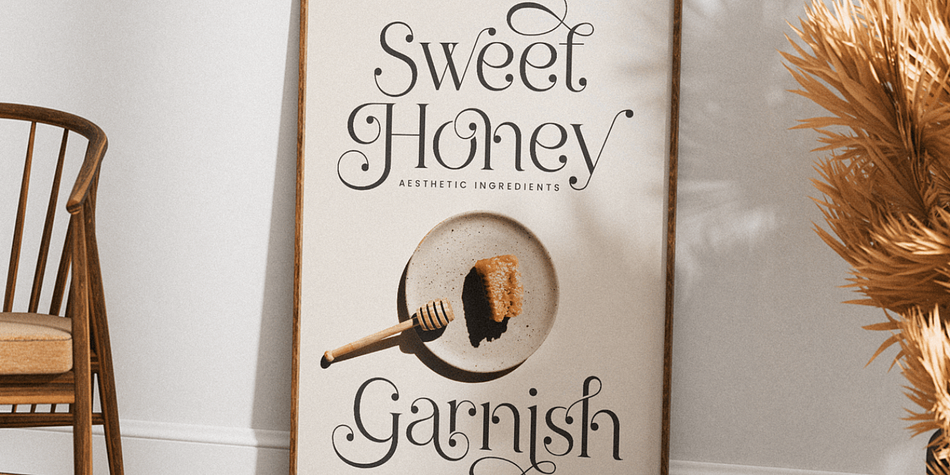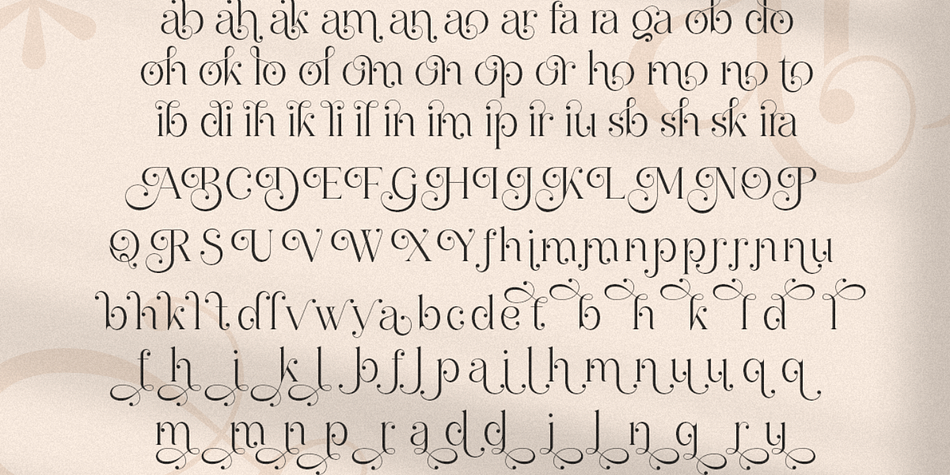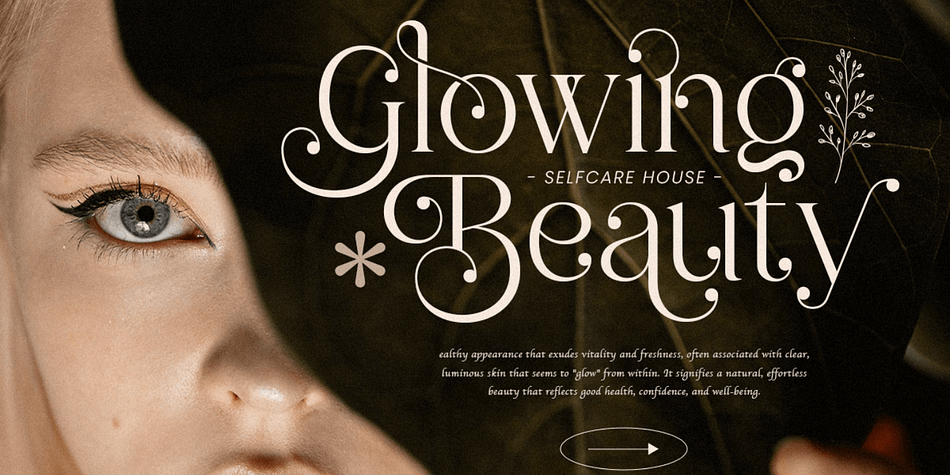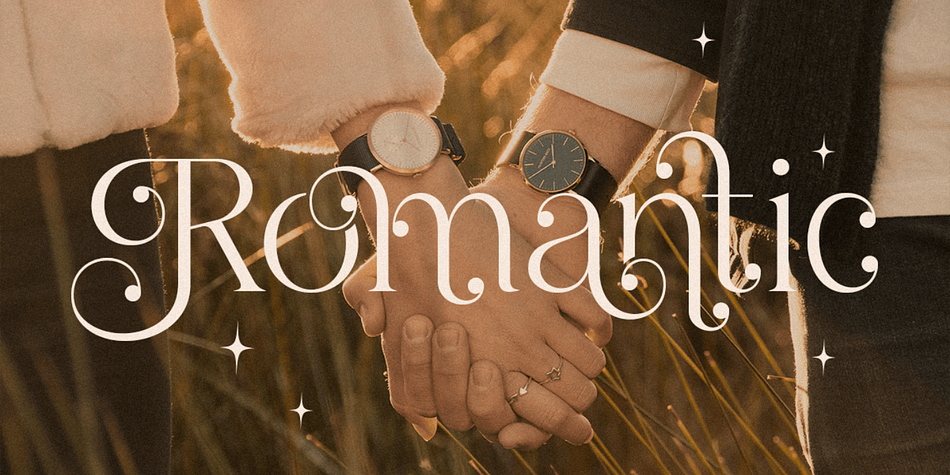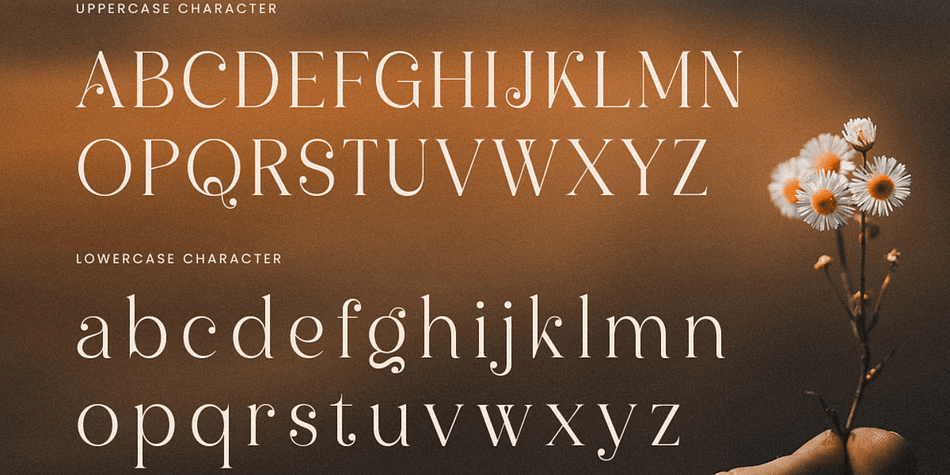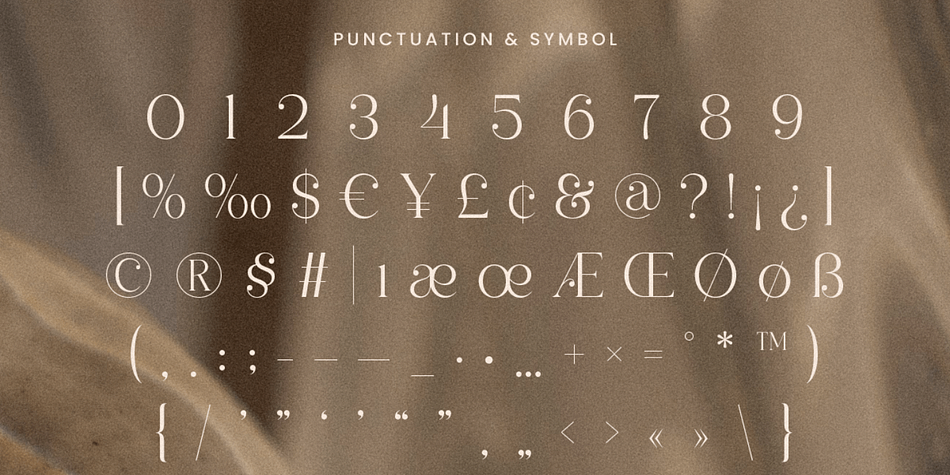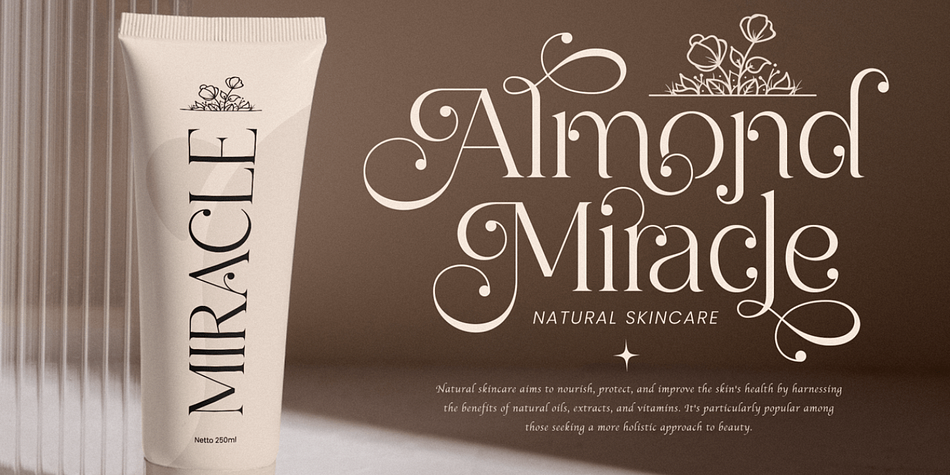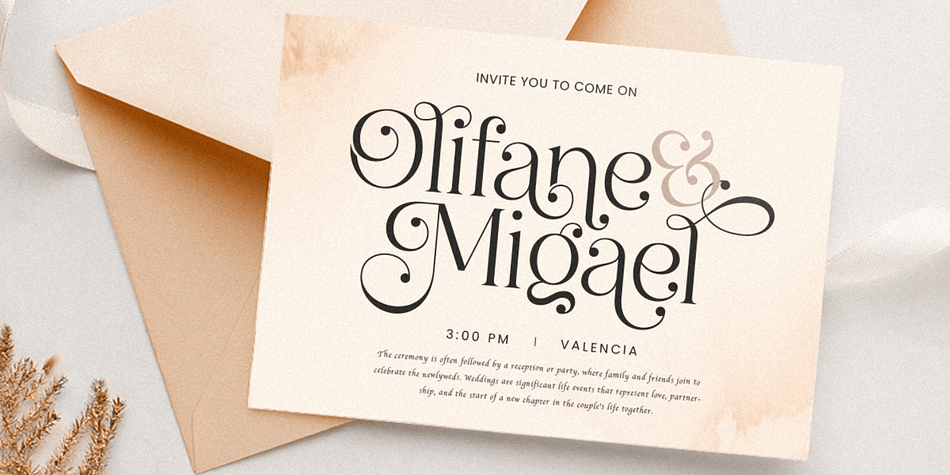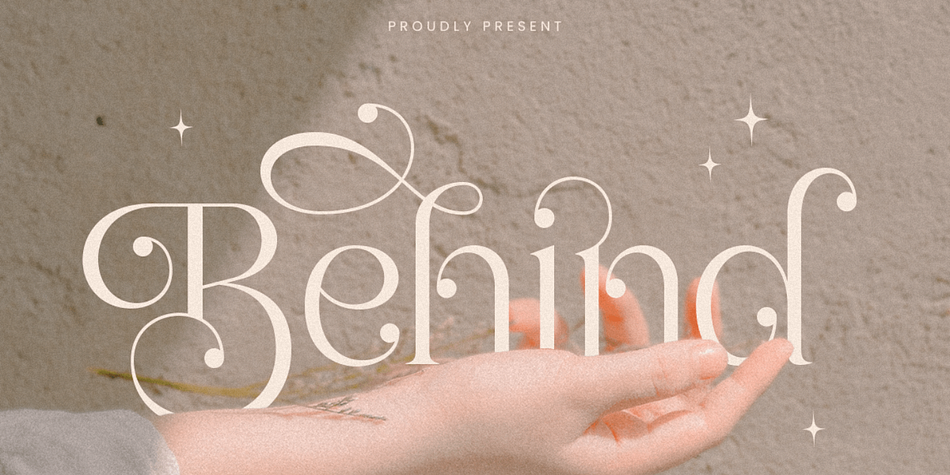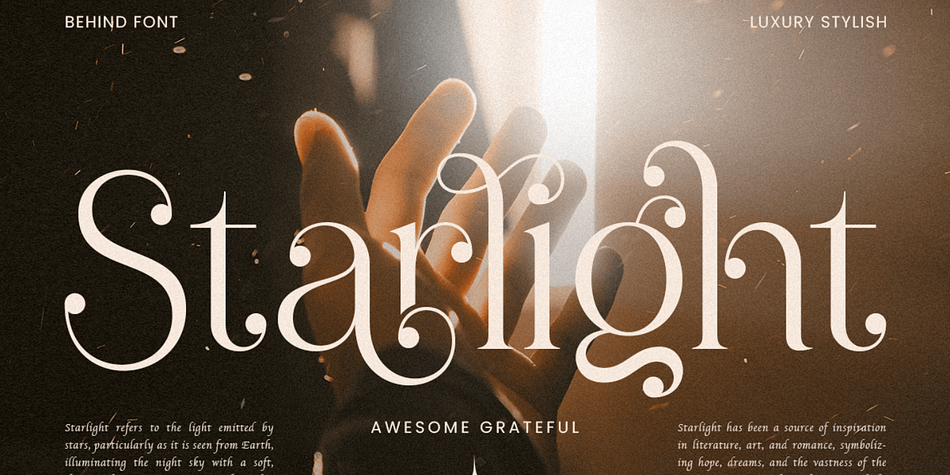
A Font That Redefines Luxury
Behind is a luxury serif font that combines timeless elegance with modern refinement. Its graceful curves and well-crafted serifs make it a sophisticated choice for high-end design projects.
Perfect for Exclusive Creations
Ideal for luxury branding, editorial designs, and upscale invitations, Behind brings a touch of class to every project. Its balanced proportions and stylish appearance ensure your designs exude confidence and elegance.
A Design Tool for Timeless Aesthetics
With its exquisite serif detailing, Behind empowers designers to create works of art that stand the test of time. This font is more than just type—it’s a statement of luxury and creativity.
Behind Luxury Serif Font Features:
Alternates & Ligature Characters Ready
Punctuation, Number, and Symbol
Uppercase and Lowercase
Opentype Features